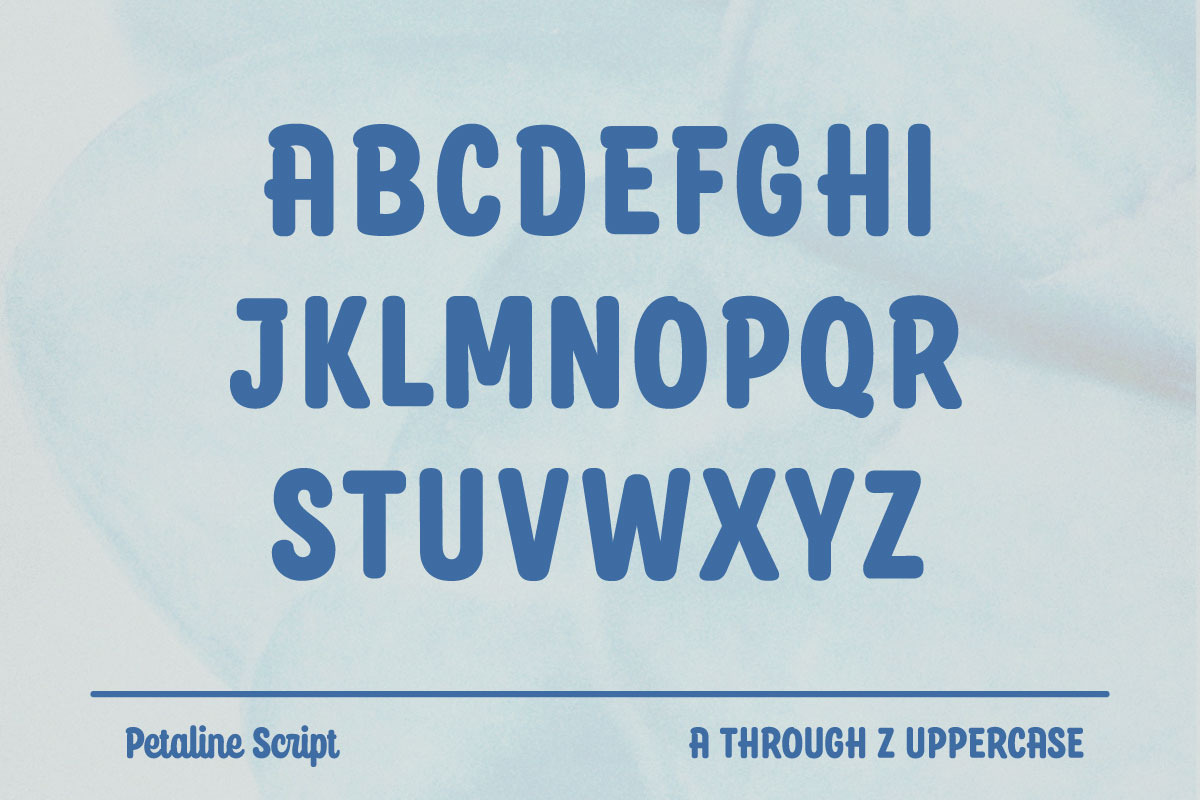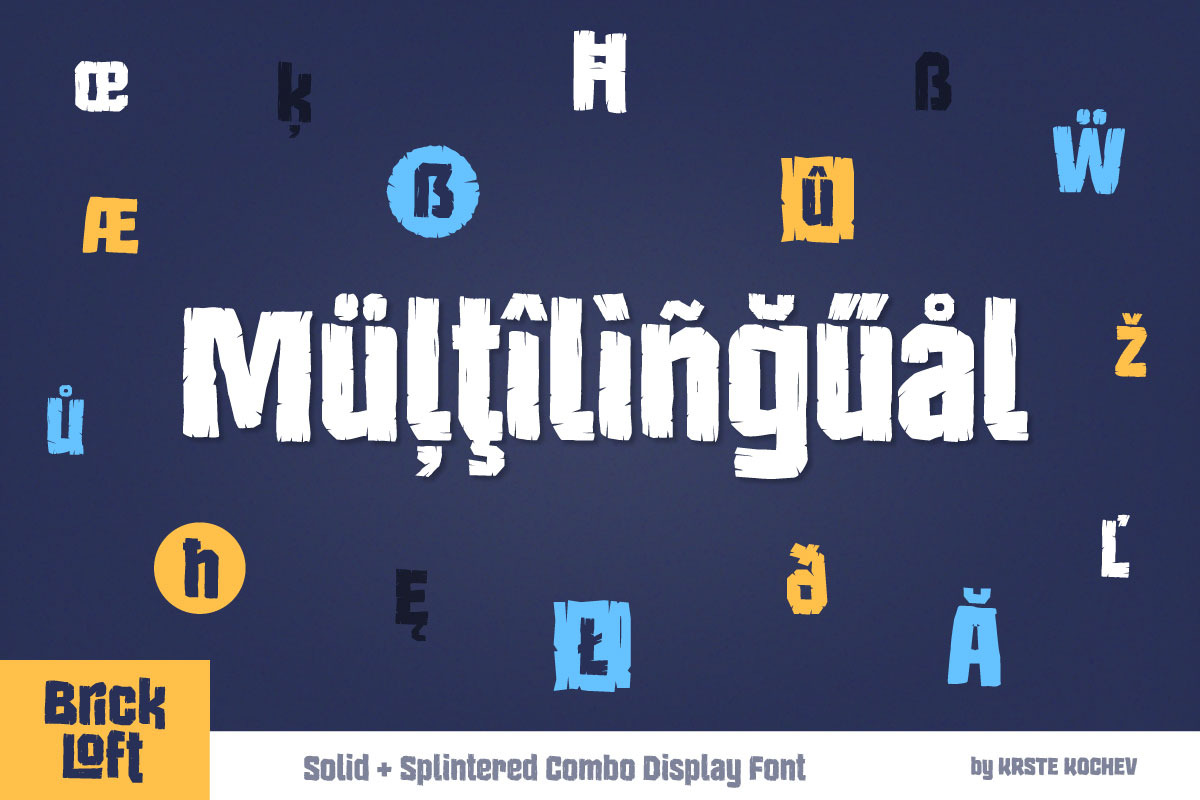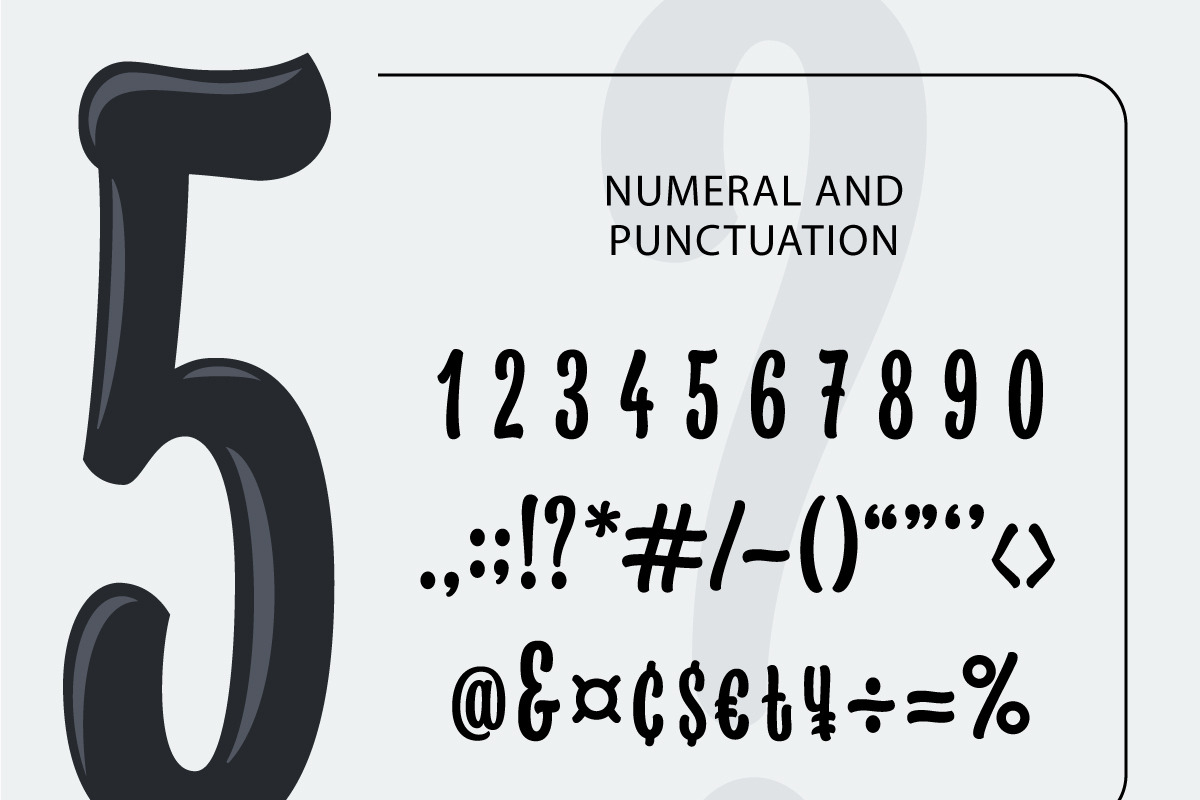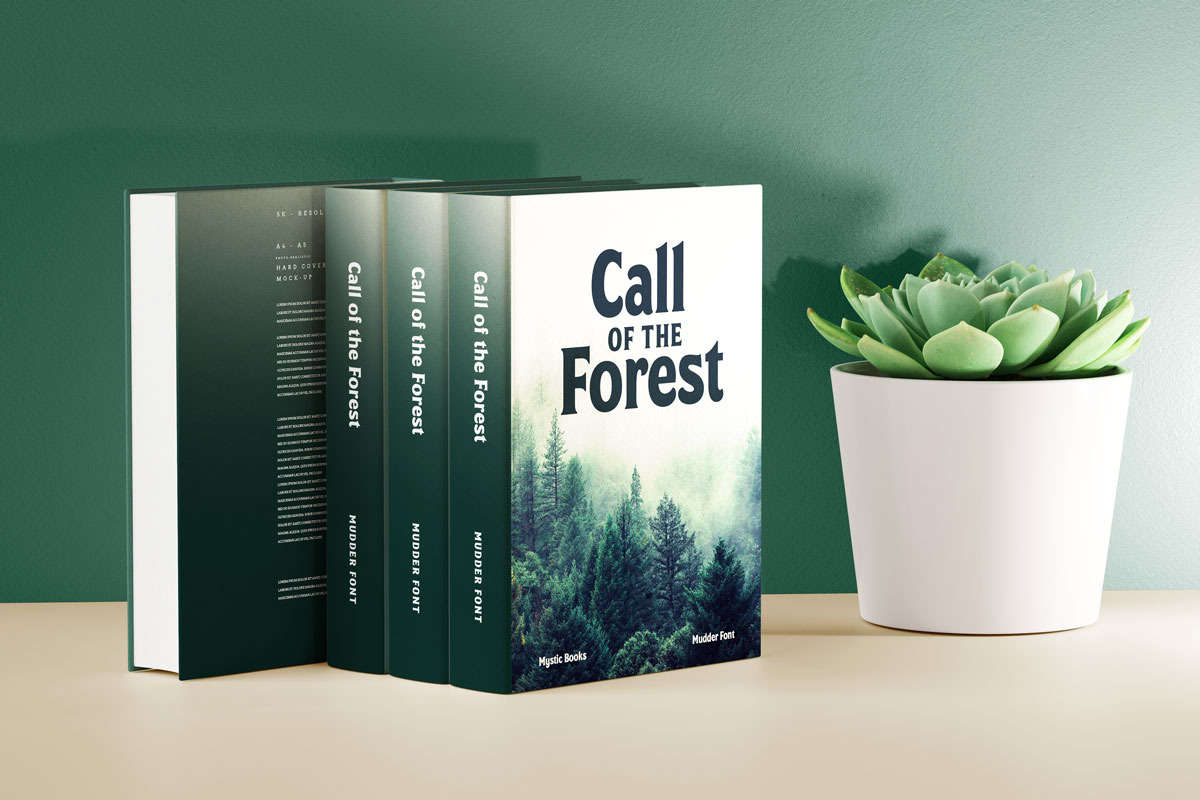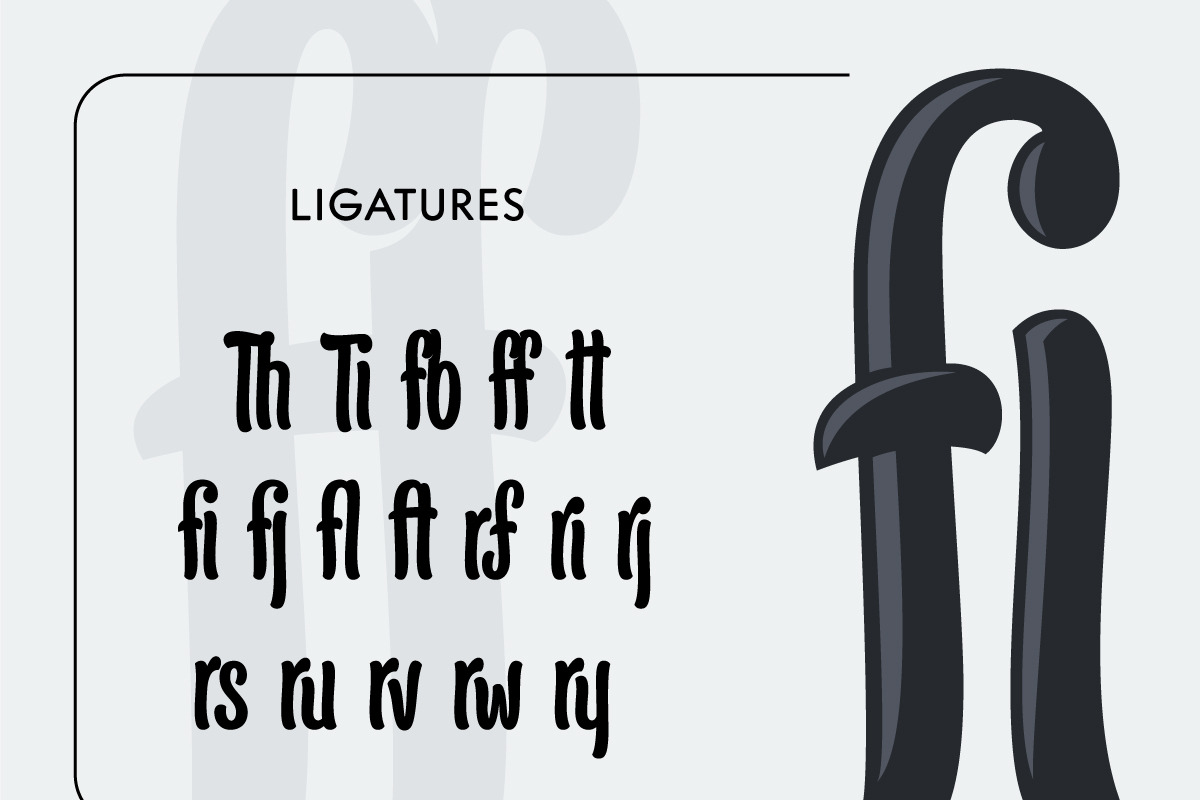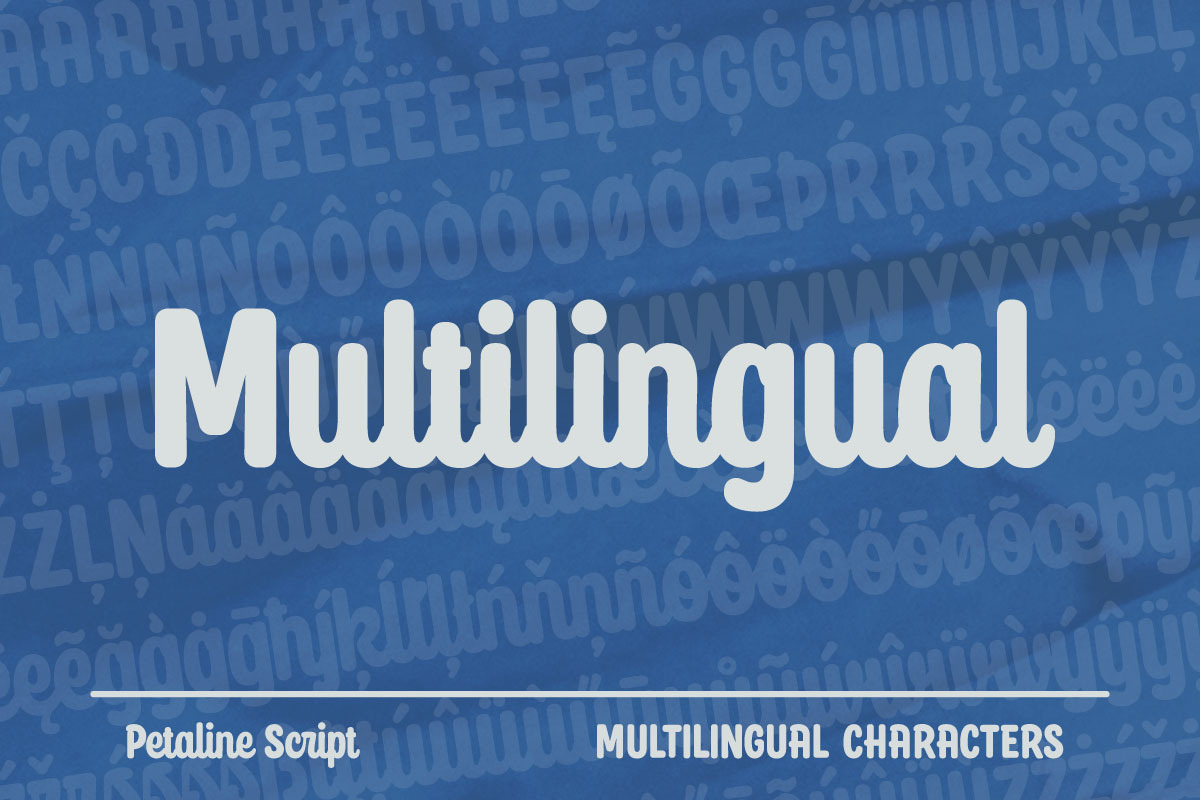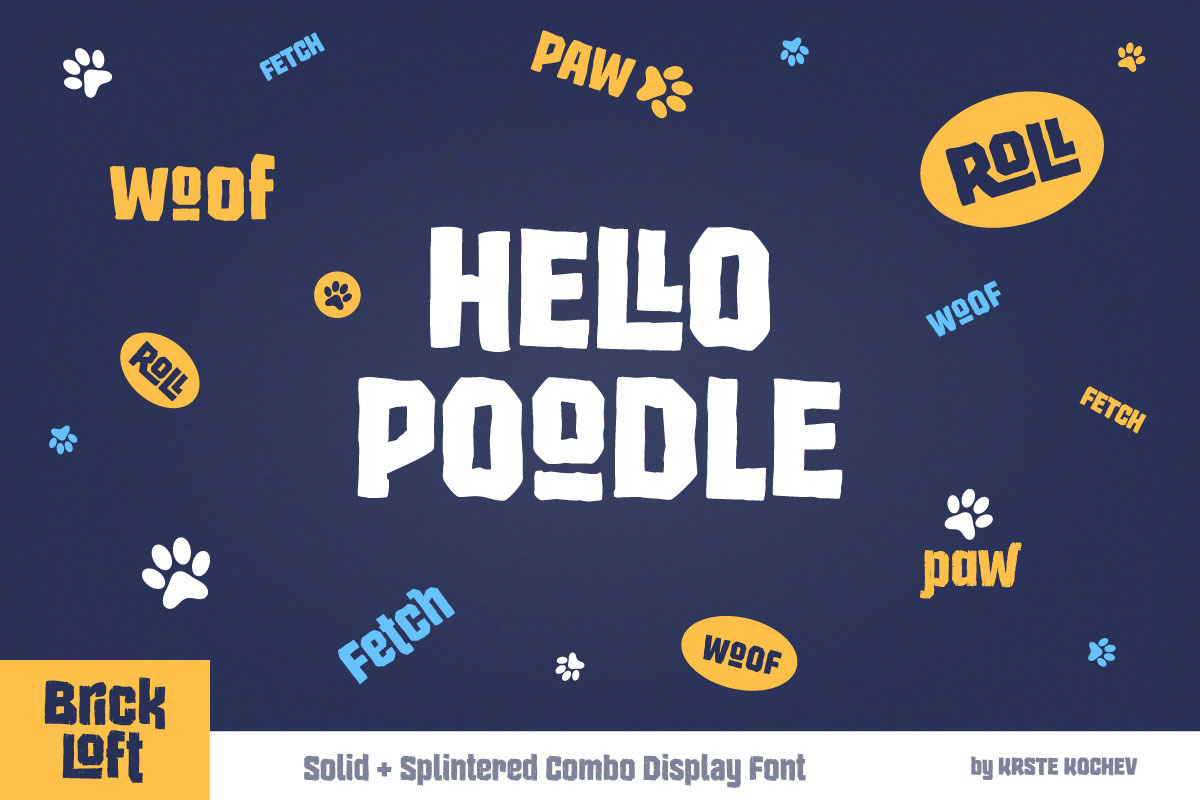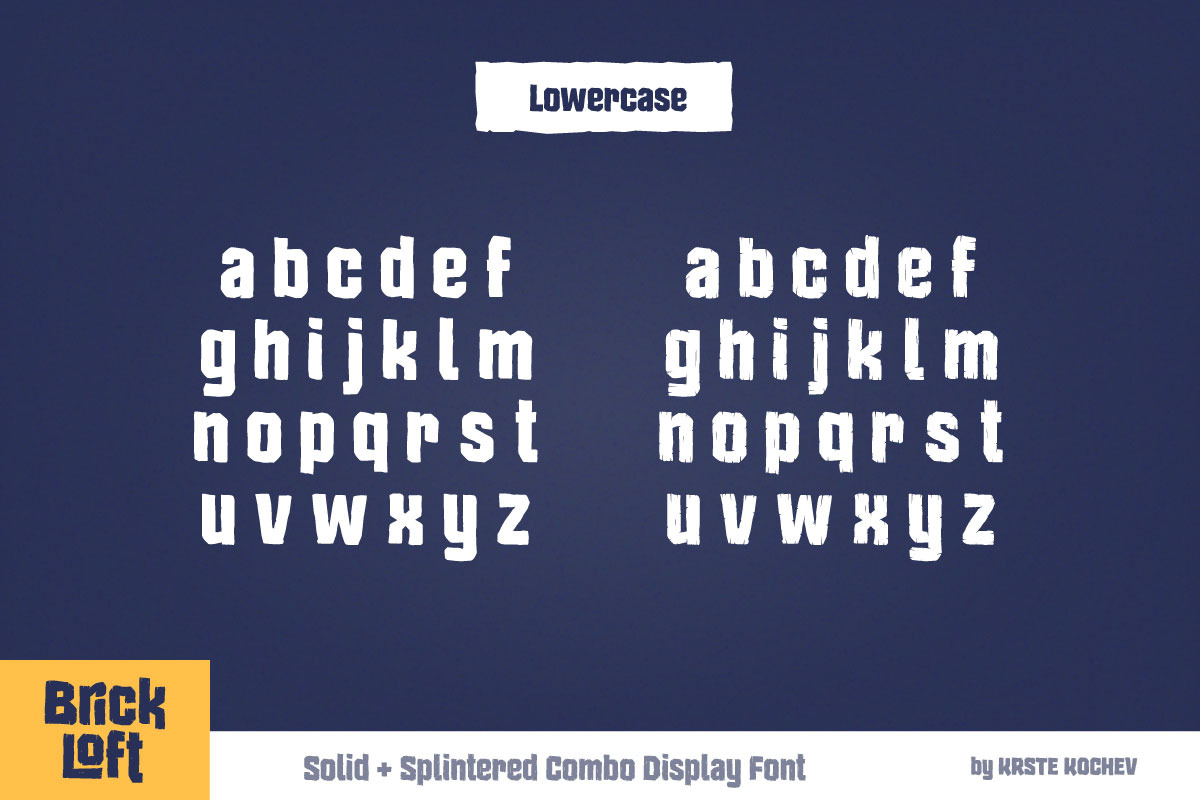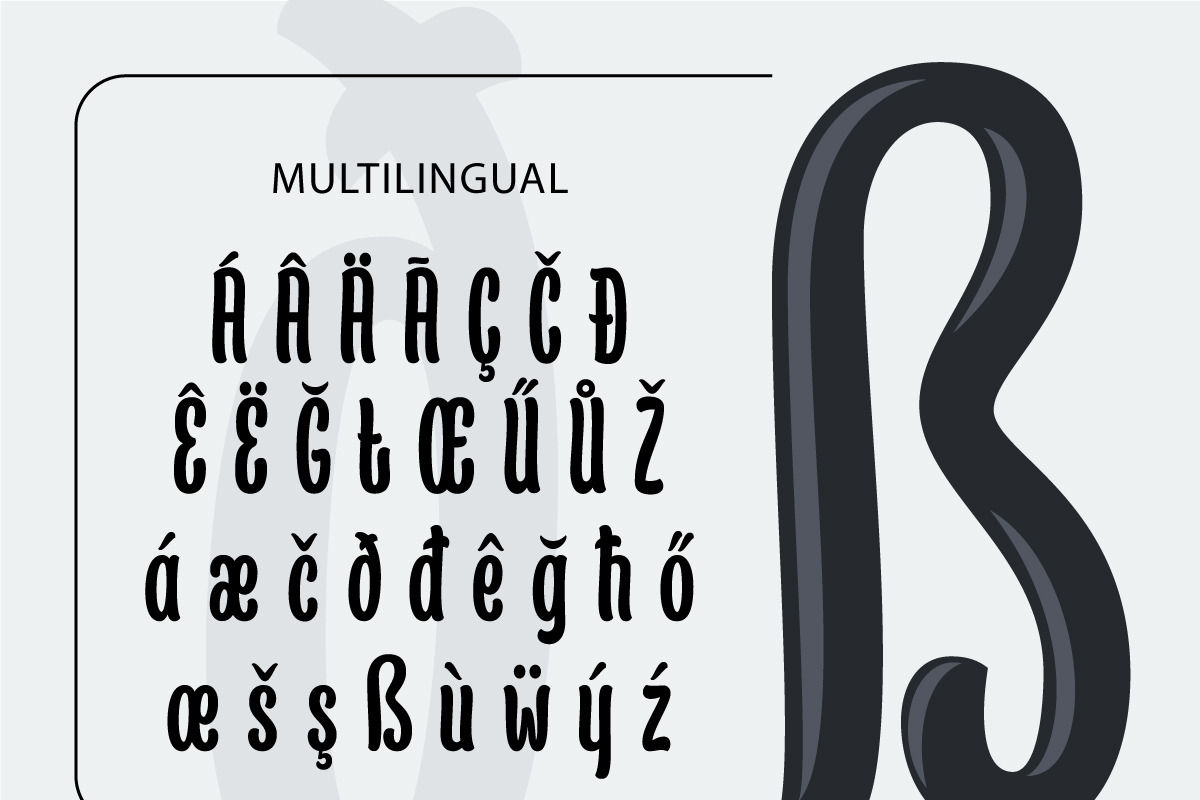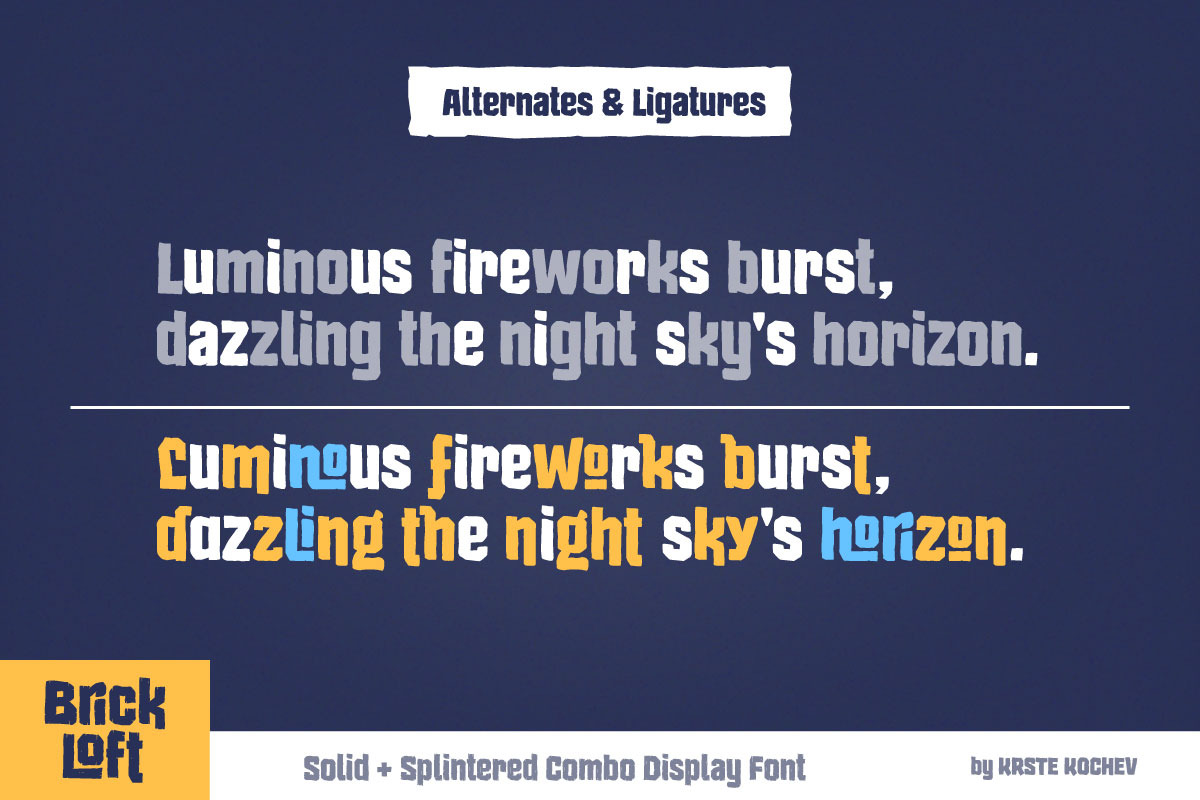
4 Fonts Combo
A super value 4 font combo offer!
- Tall & Handsome - Condensed Display Font
- Muddler - Display Serif Font
- Brick Loft - Distressed Interlocking Display Font
- Petaline - Soft Rounded Script Font
Each font has open type support